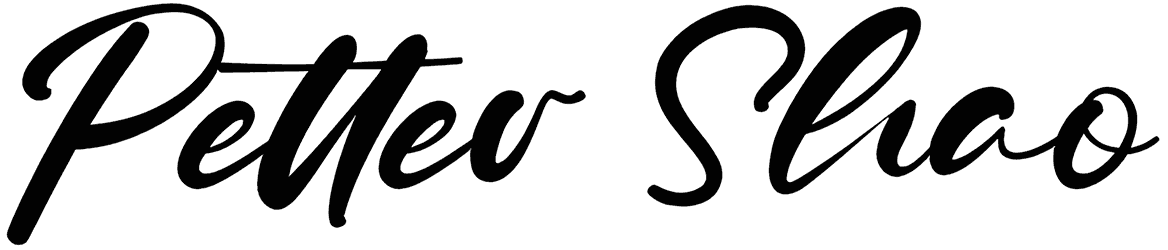
Petter Shao Font
Petter Shao’s fluid beats and subtle curves create a sense of seductive and mesmerizing fluidity. This script font is rooted in calligraphy and will never go out of fashion. Suppose you want to make a harmonious whole in your titles, body text, greeting cards, or invitations.
In that case, you can add complexity and elegance to your design projects using this handwritten font. So go ahead and put all your human emotions into words using Petter Shao to leave a lasting impression.